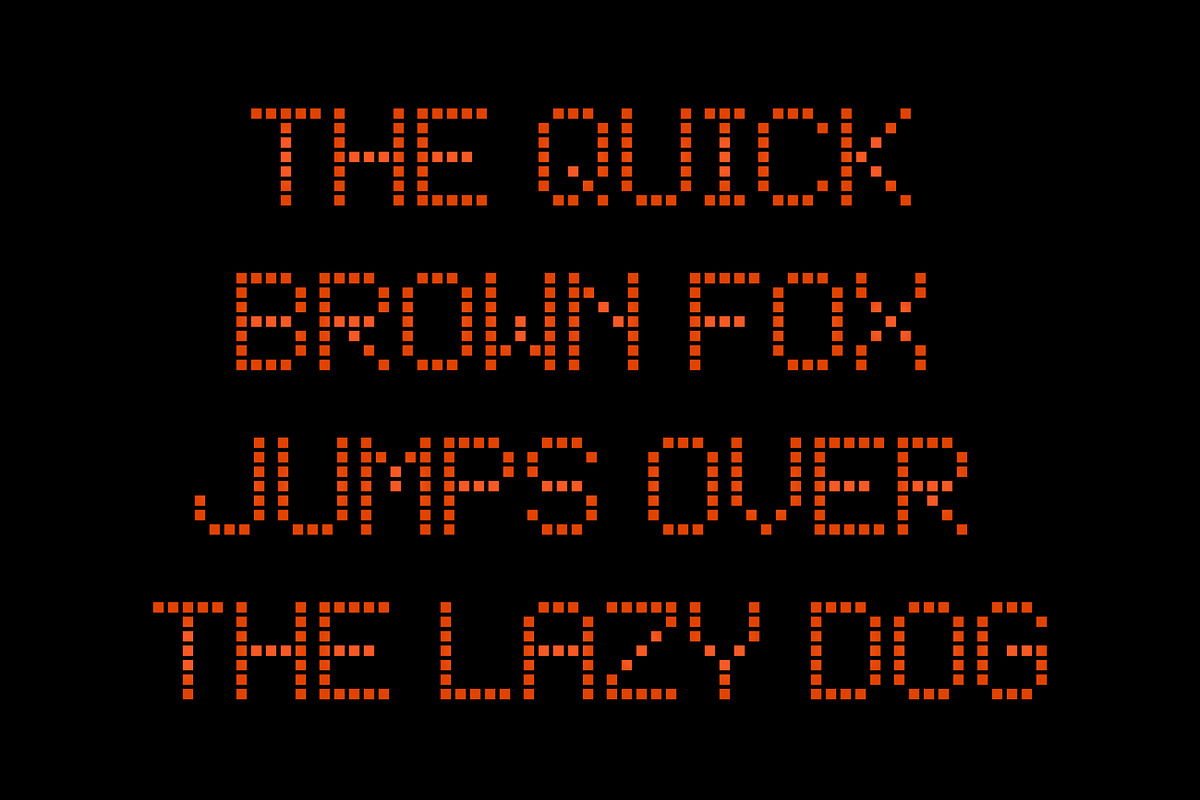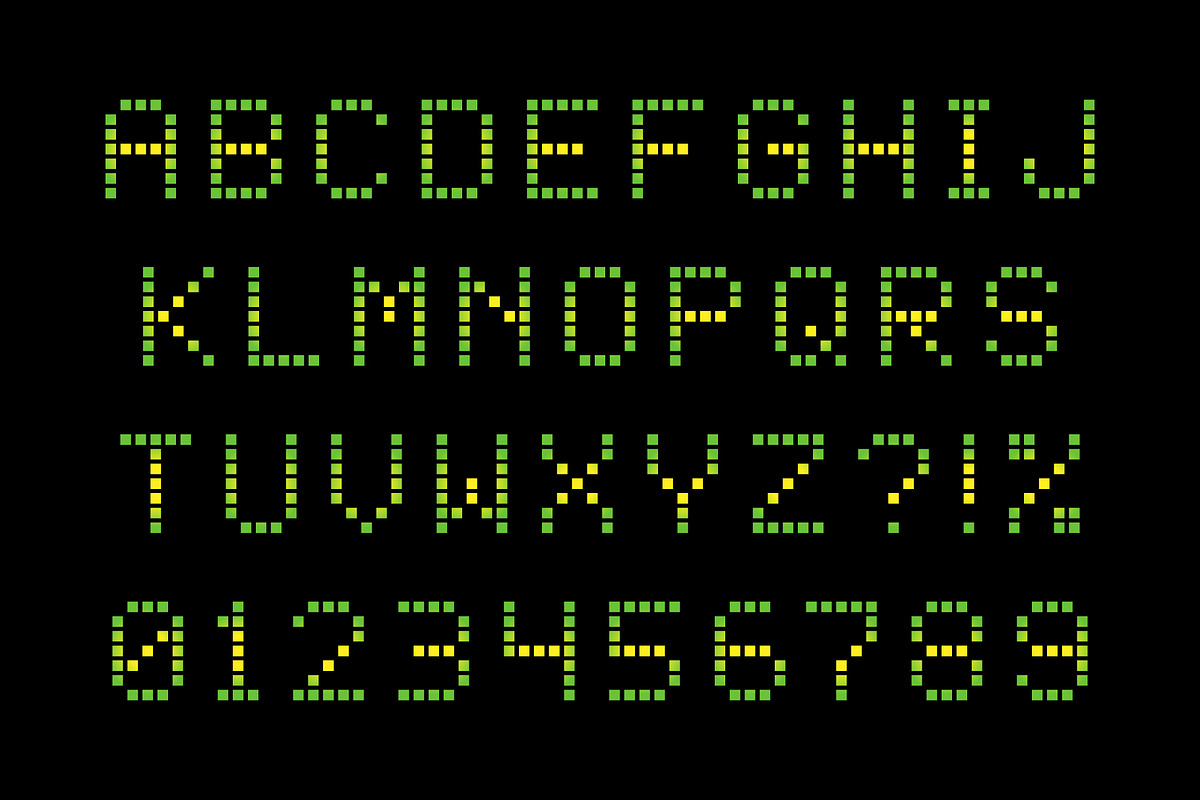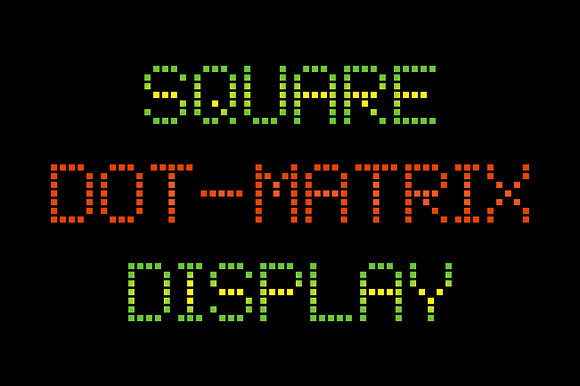
Square Dot-Matrix Display Font
Why Square Dot-Matrix Display Font is worth a look
Square Dot-Matrix Display Font by Krafti Lab fits naturally into Branding, posters, packaging, typography.